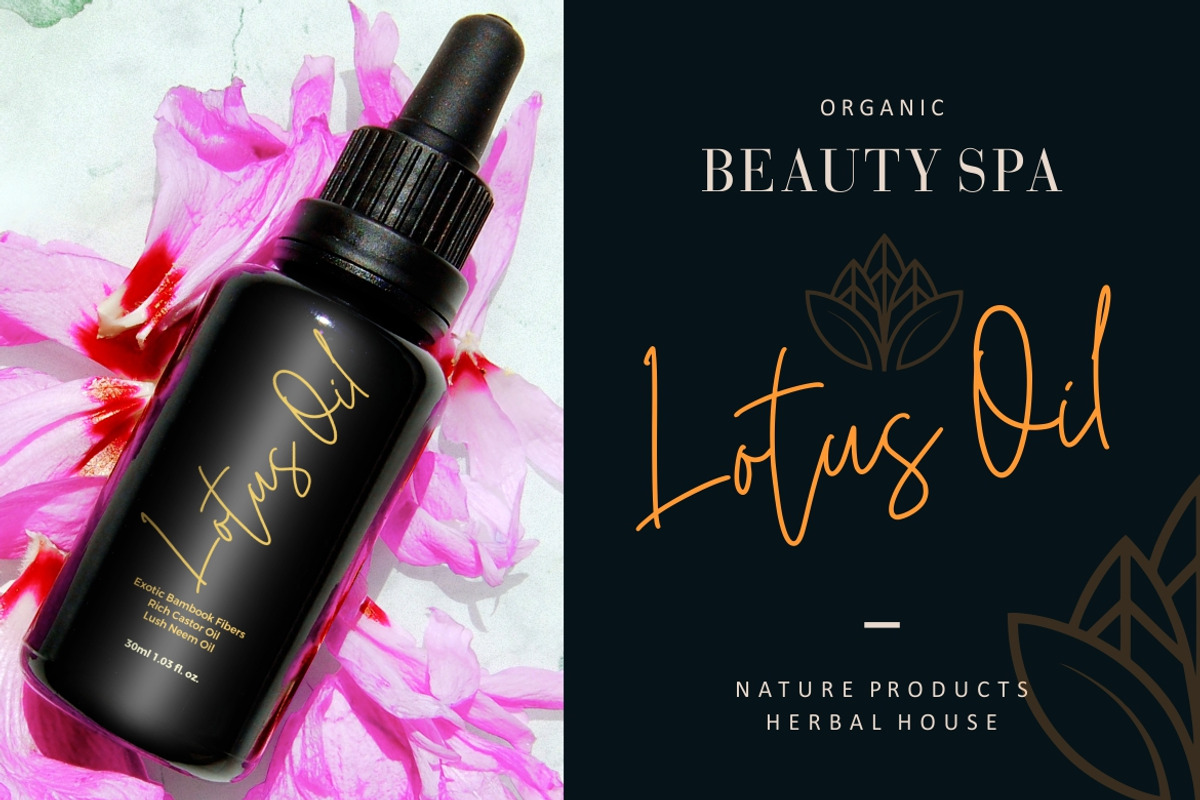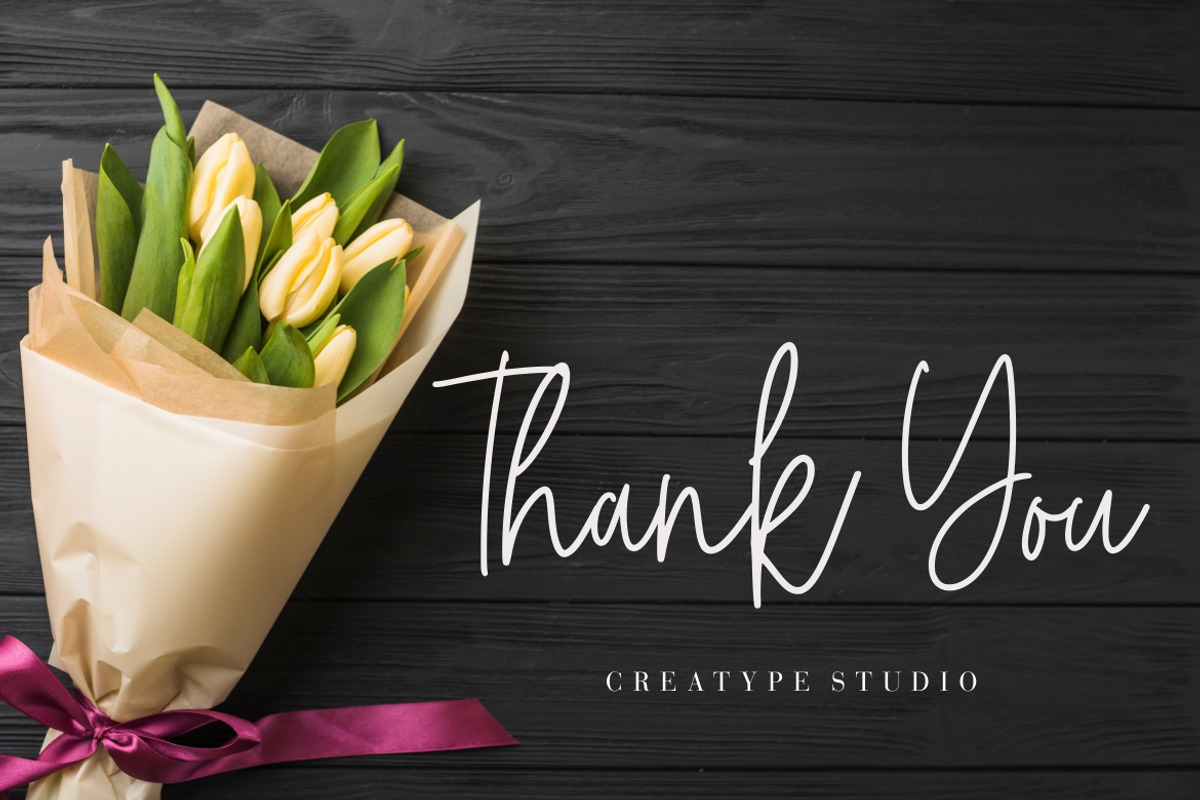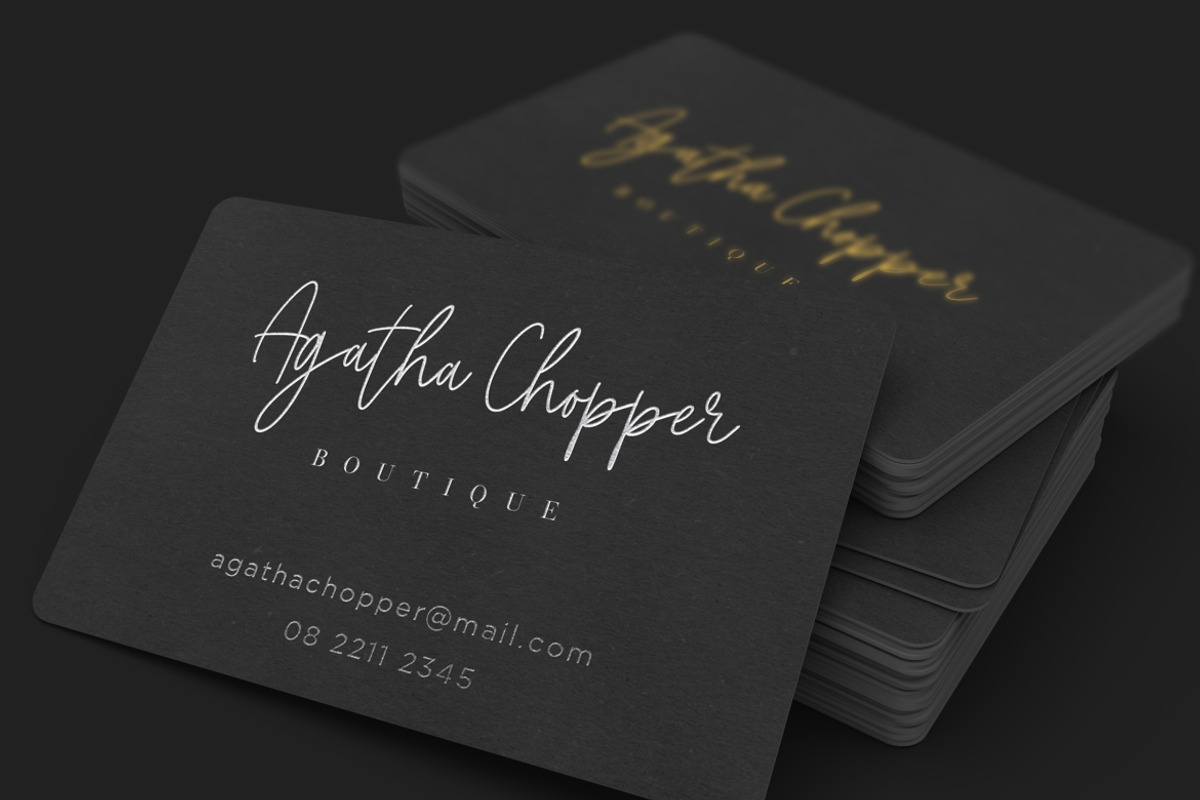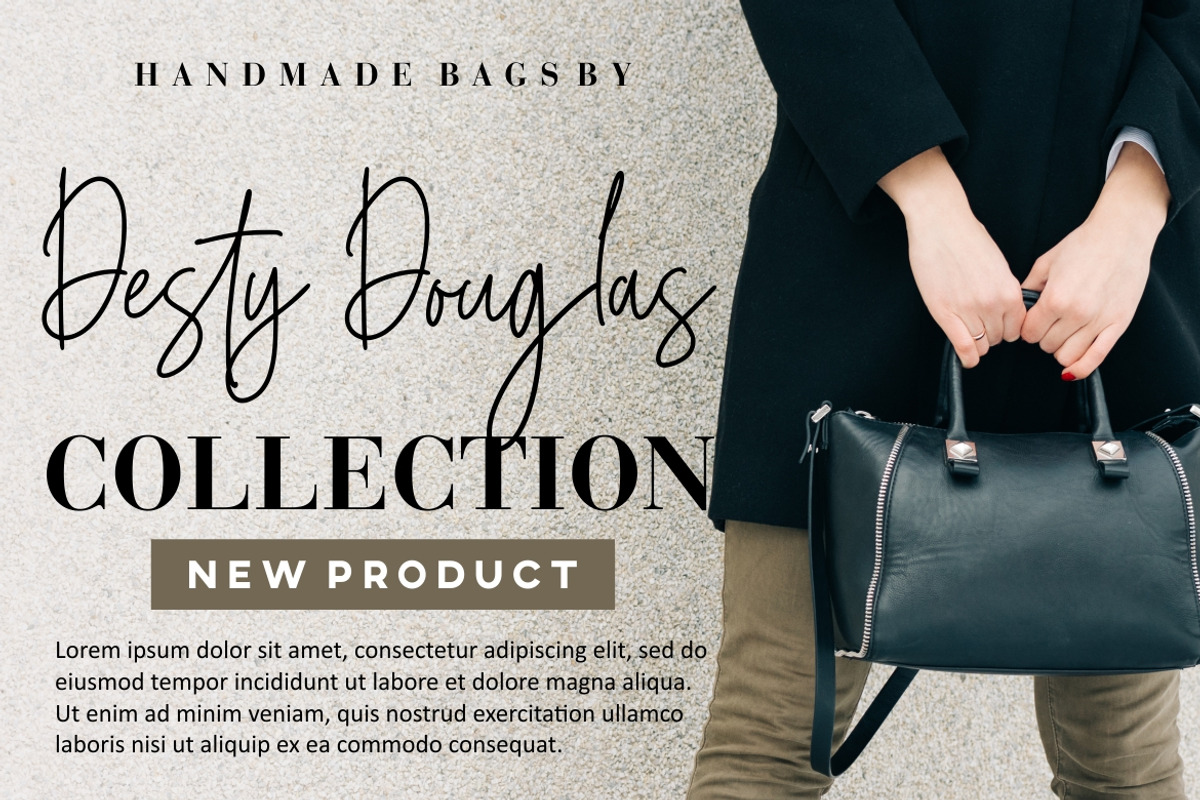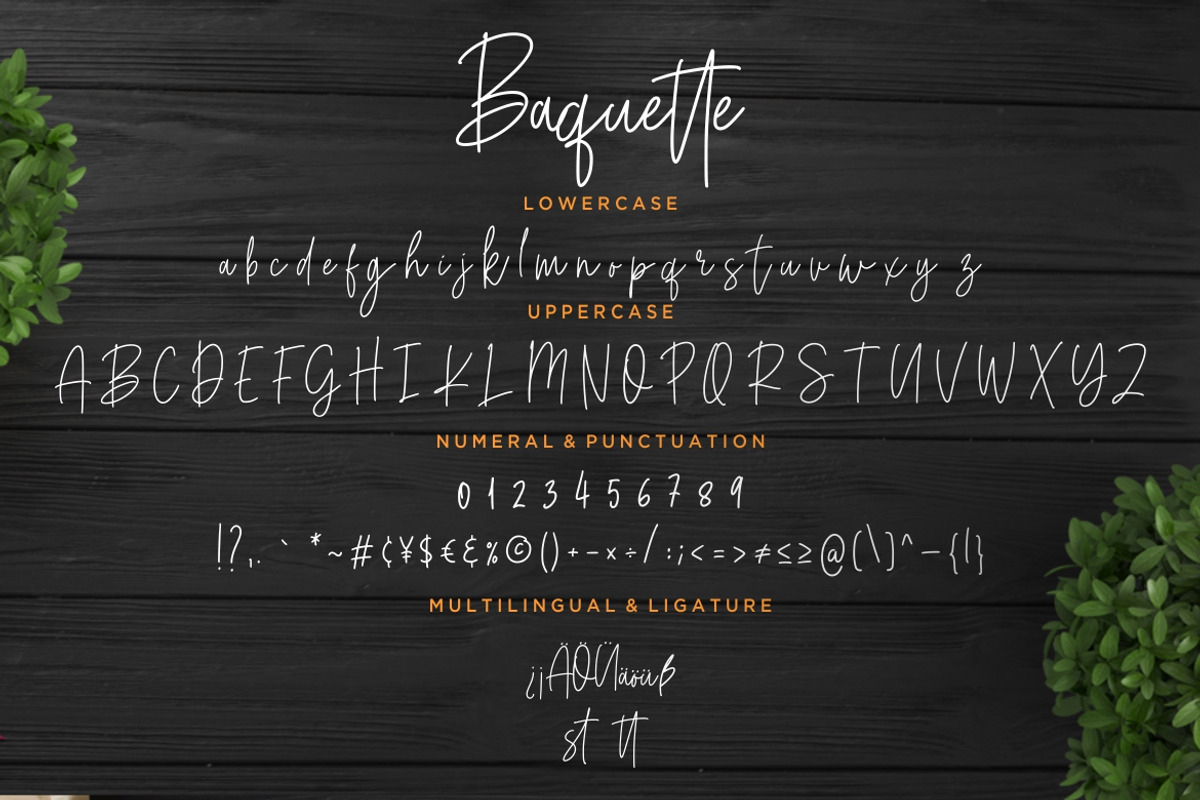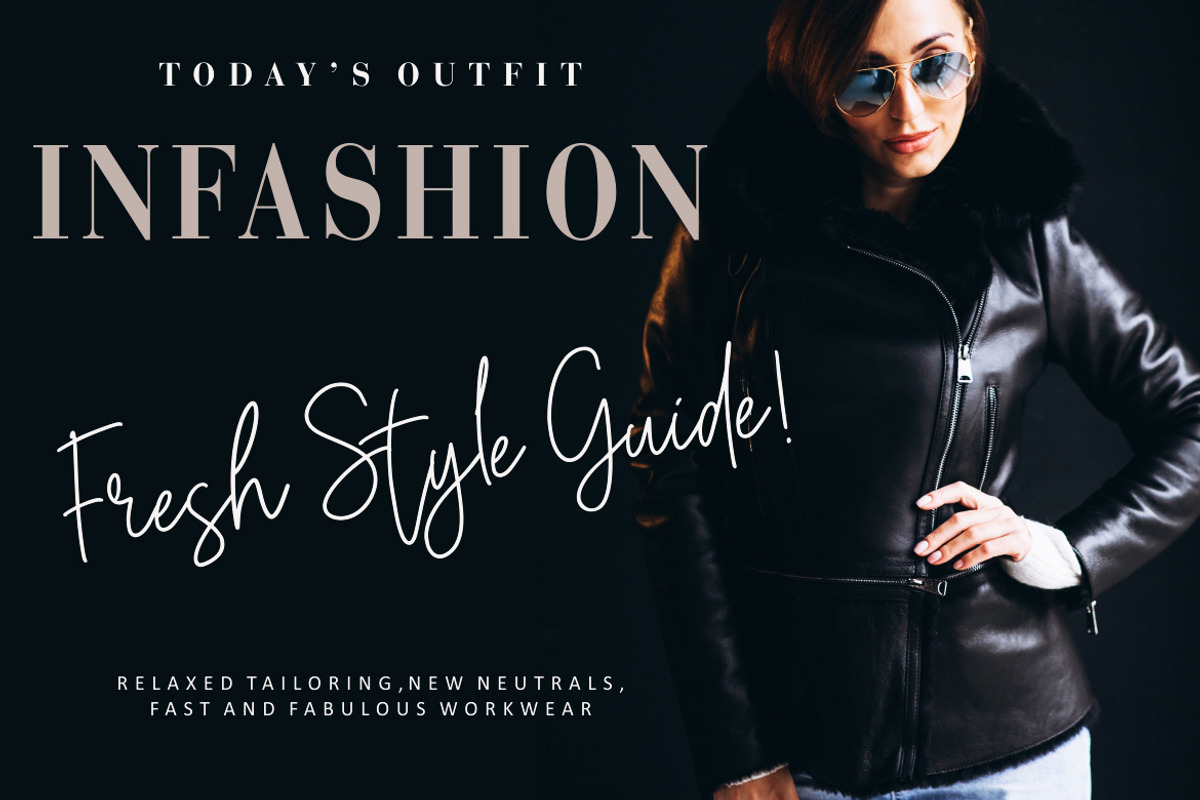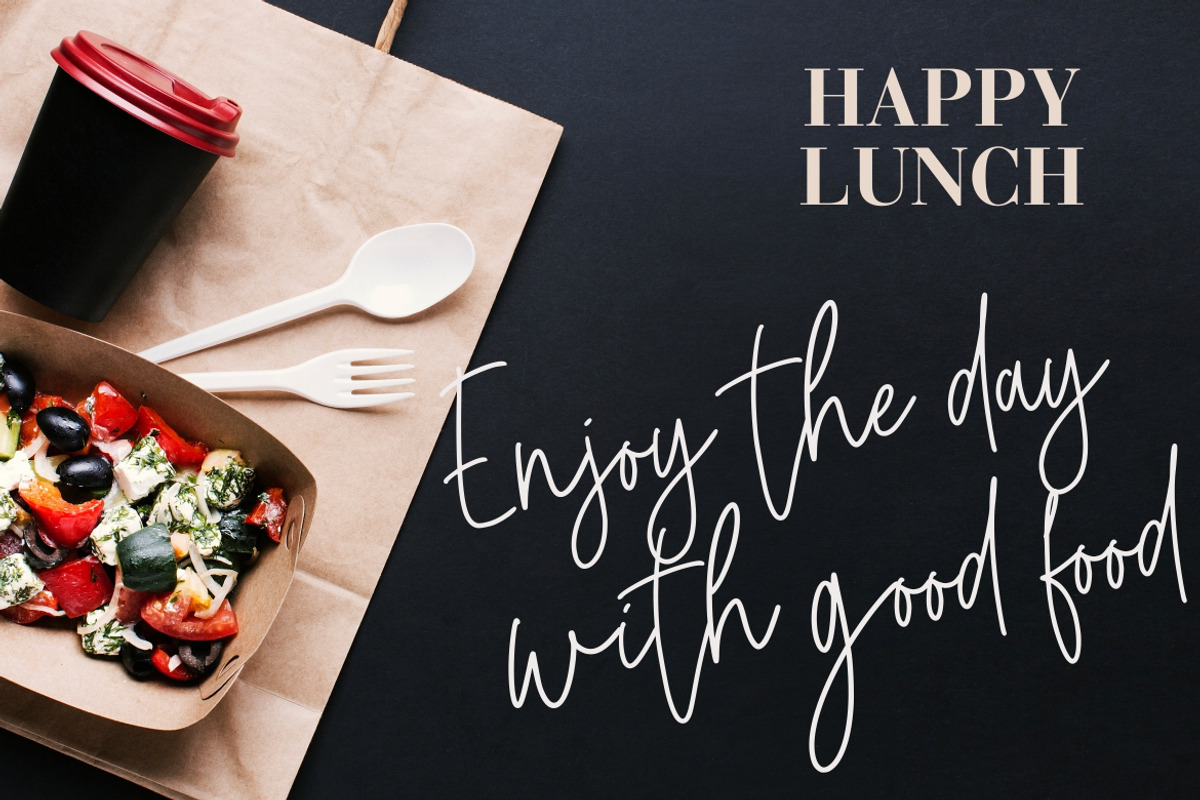
Baquette Monoline Business Font
Baquette is monoline script font which natural movement and elegant for signature style.
Baquette is perfect for branding projects, logo, wedding designs, social media posts, advertisements, product packaging, product designs, label, photography, watermark, invitation, stationery and any projects that need handwriting taste.
Why Baquette Monoline Business Font is worth a look
Baquette Monoline Business Font by Creatype Studio fits naturally into Branding, posters, packaging, typography.